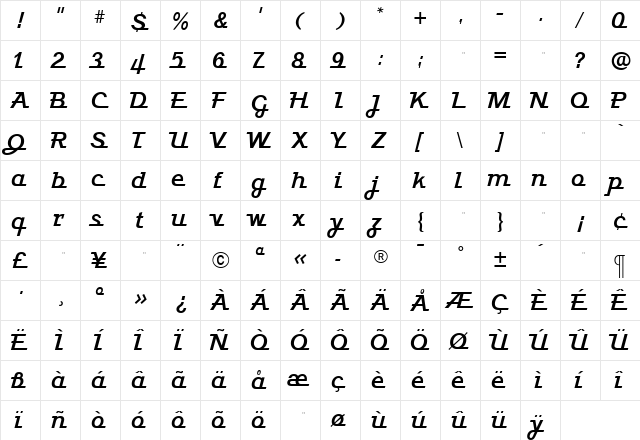
JavelinBold Roman Font Preview
JavelinBold Roman
JavelinBold Roman Font Details
Design Context for JavelinBold Typeface
JavelinBold takes a measured approach to typography — its balanced proportions and neutral character make it a reliable workhorse for both digital and print work. Its bold stroke weight gives it real presence on the page.
Pro Tip: Use JavelinBold in both headline and body roles to test its range before committing to a single application.